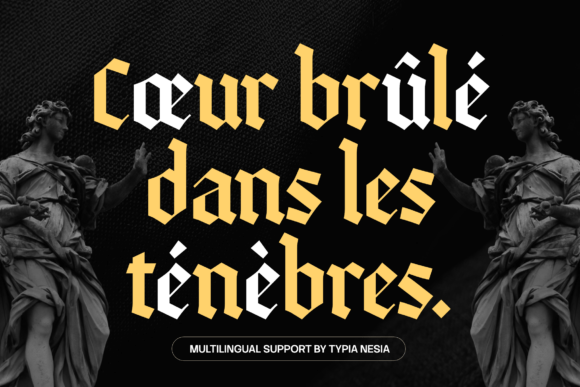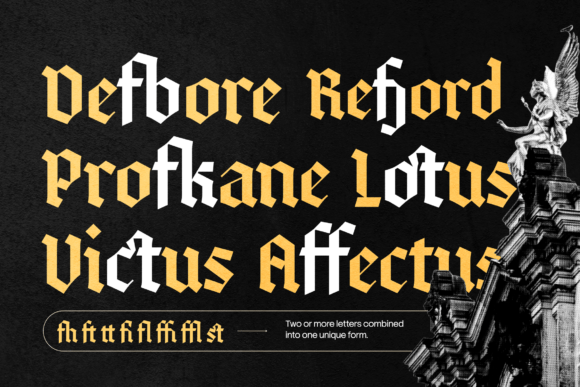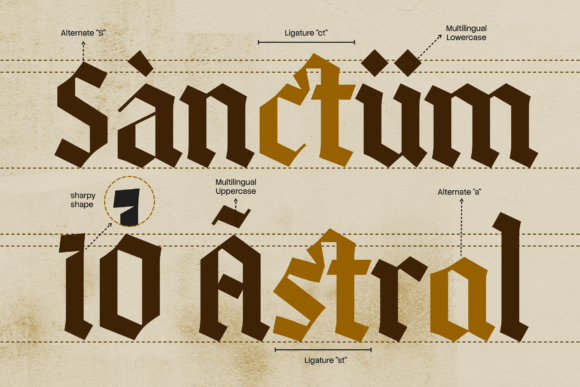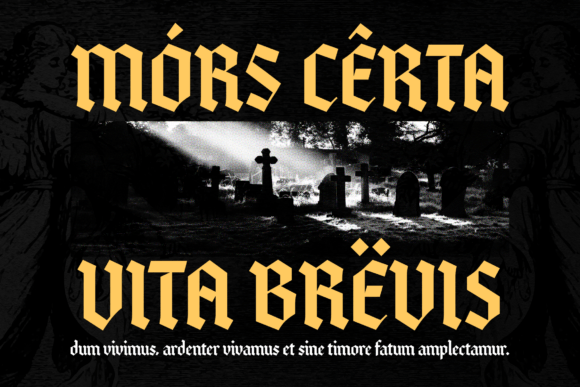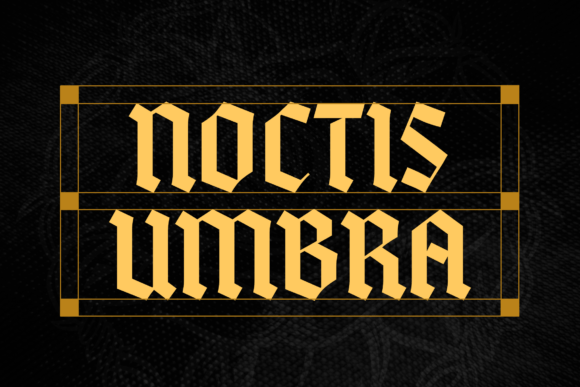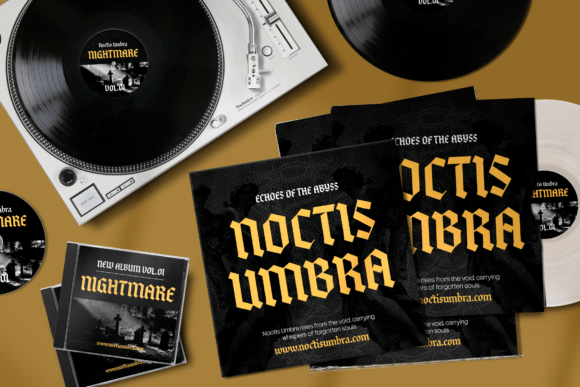
Introduction to Quitestar Font
Quitestar – Modern Gothic Blackletter Font – Classic Vintage Logo Display Font Quitestar is a modern Gothic blackletter font that blends classic medieval and Old English influences with a bold contemporary edge.
Designed with sharp, dramatic strokes and strong letterforms, it is ideal for logo design, music and band artwork, game titles, esports branding, horror posters, and any project that needs a touch of powerful Gothic and hardcore aesthetics Make your designs bold and fearless with Quitestar.
Key Features of Quitestar Font